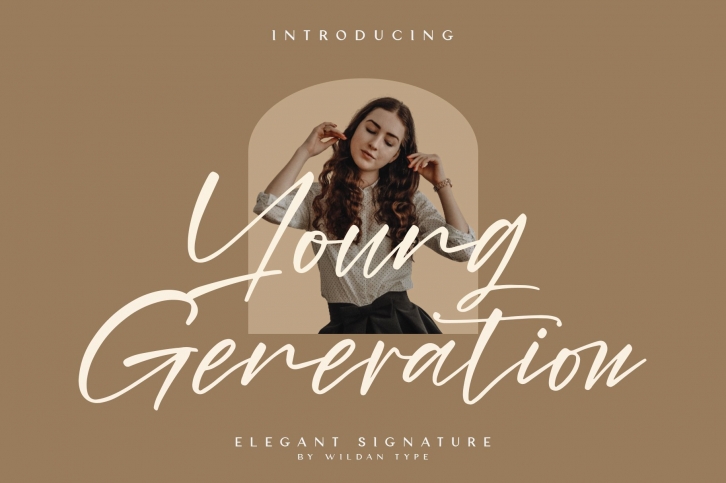
Young Generation is a gorgeous font that was realeased on November 3, 2021. The font can be used in many style contexts and design environments. Perfect for invitations, magazines, websites, logos, and more! It was designed by Wildan Type and the file size is 9.6 MB. Thanks for checking out this font!